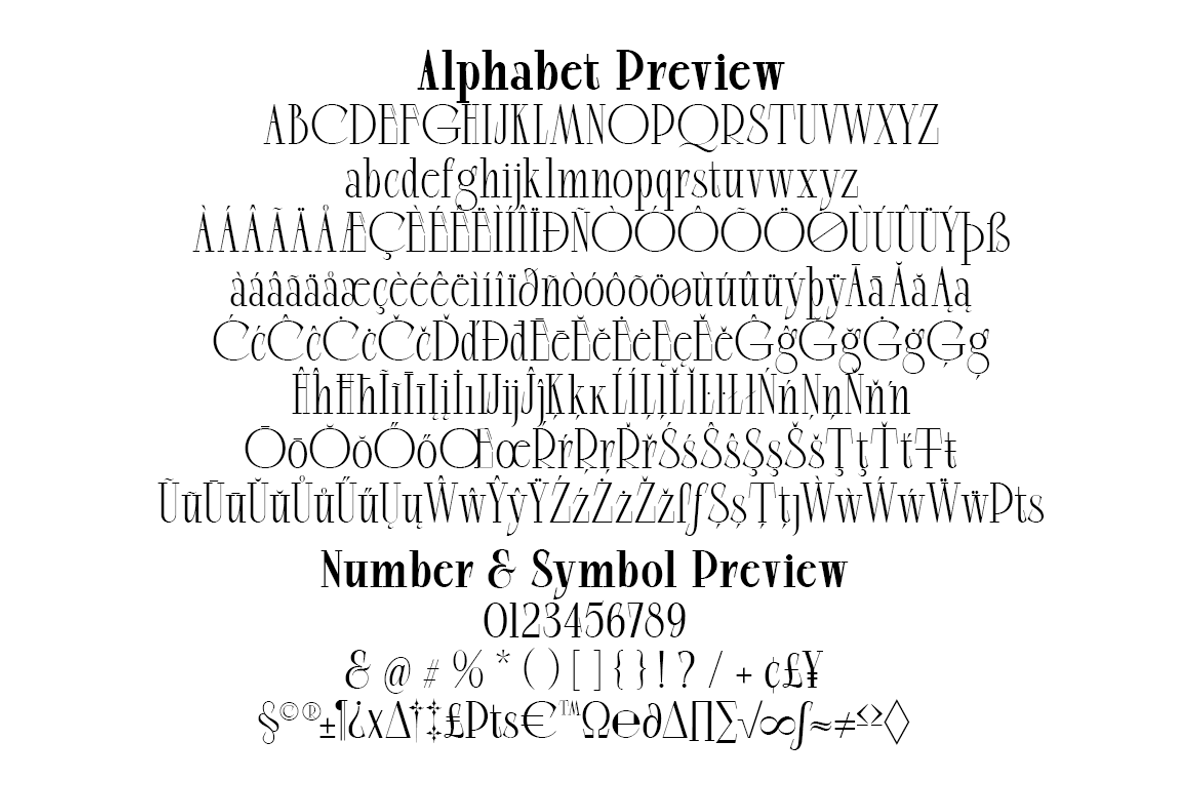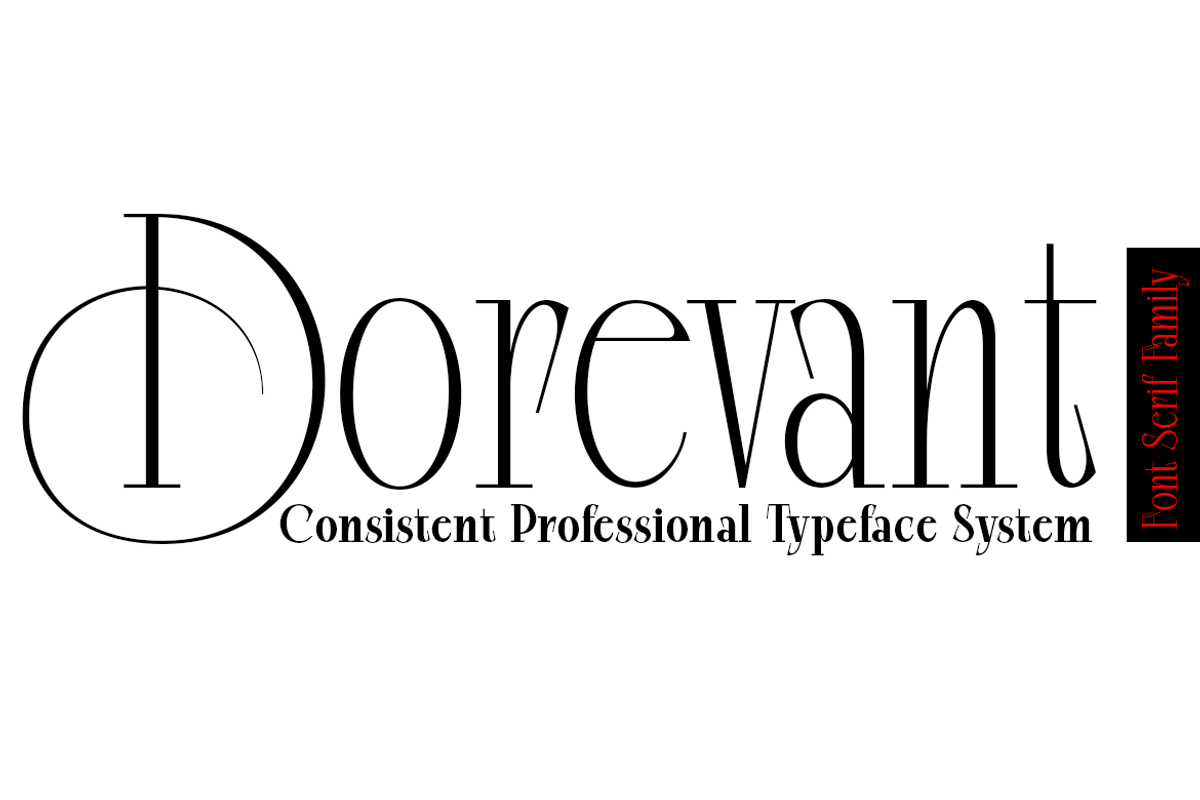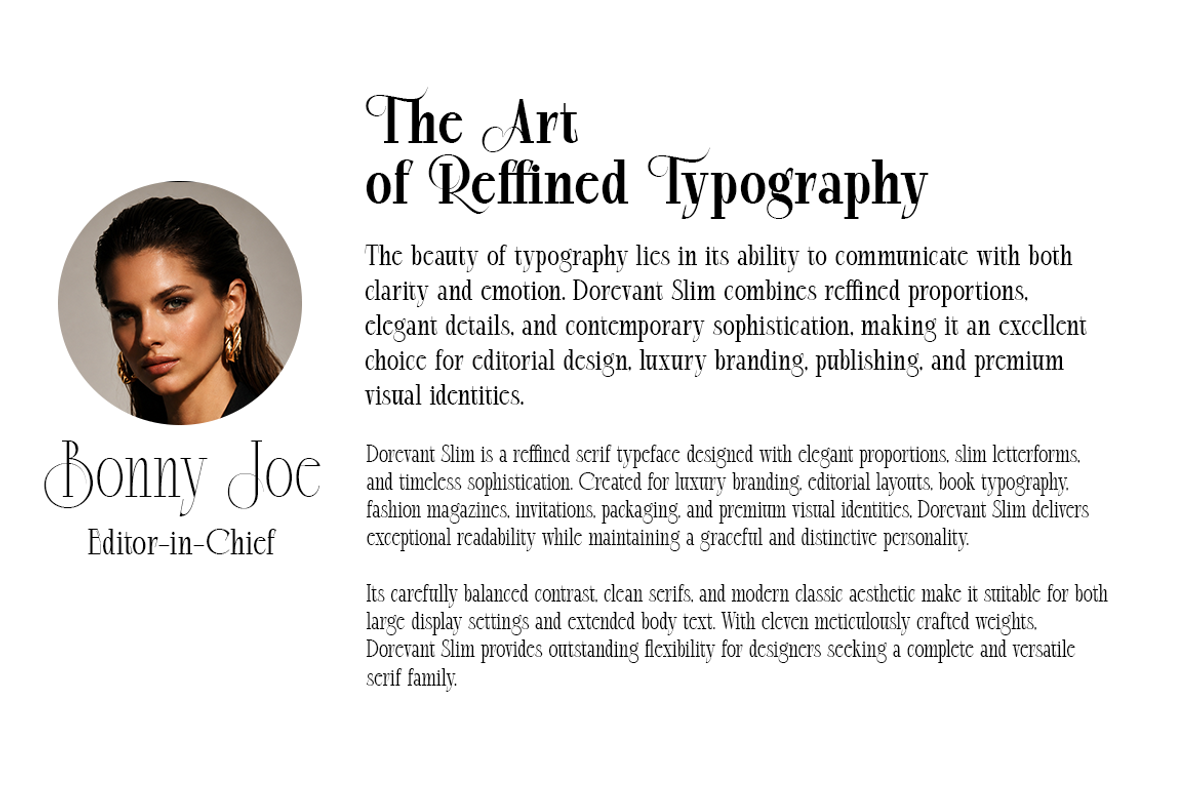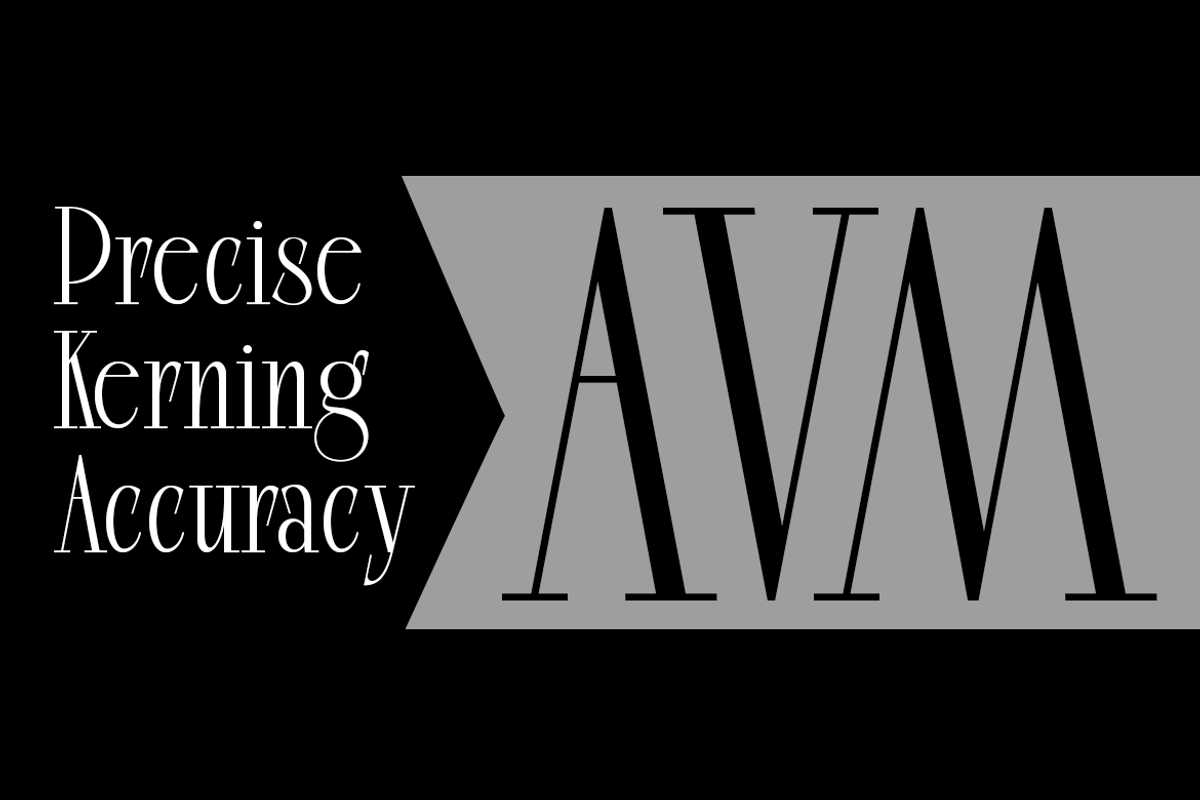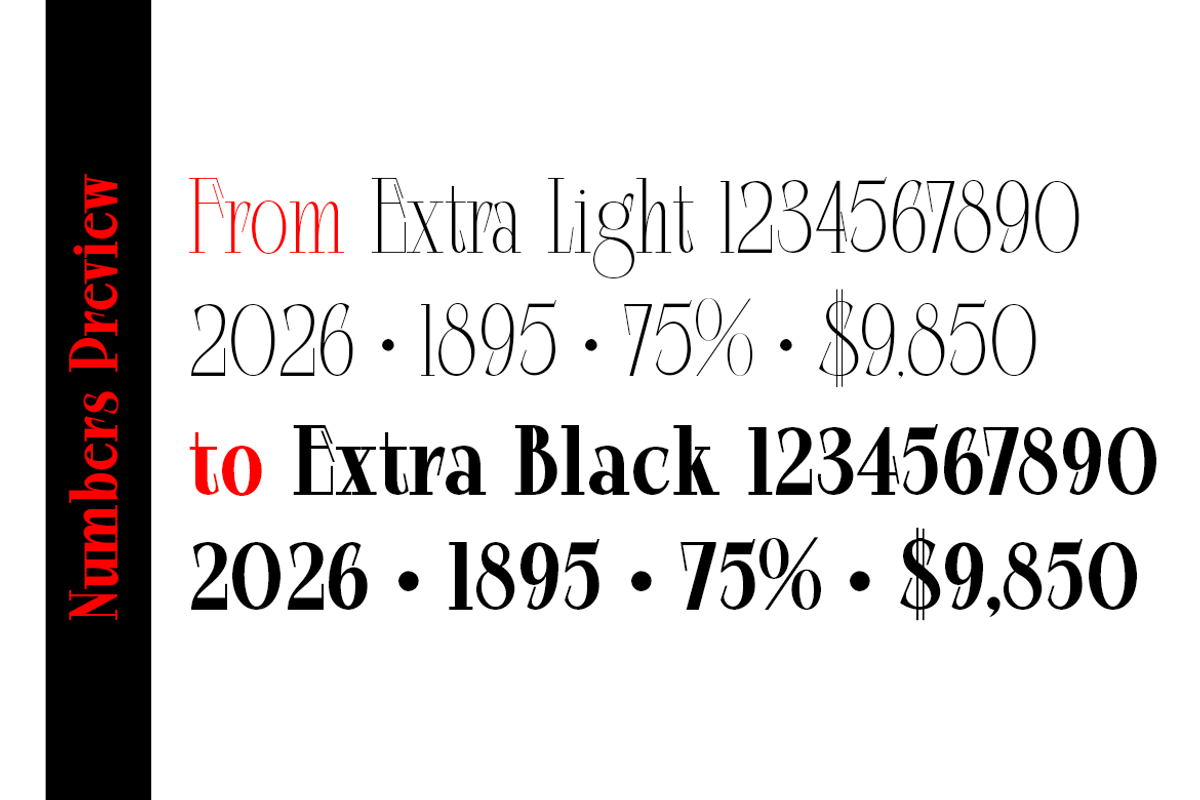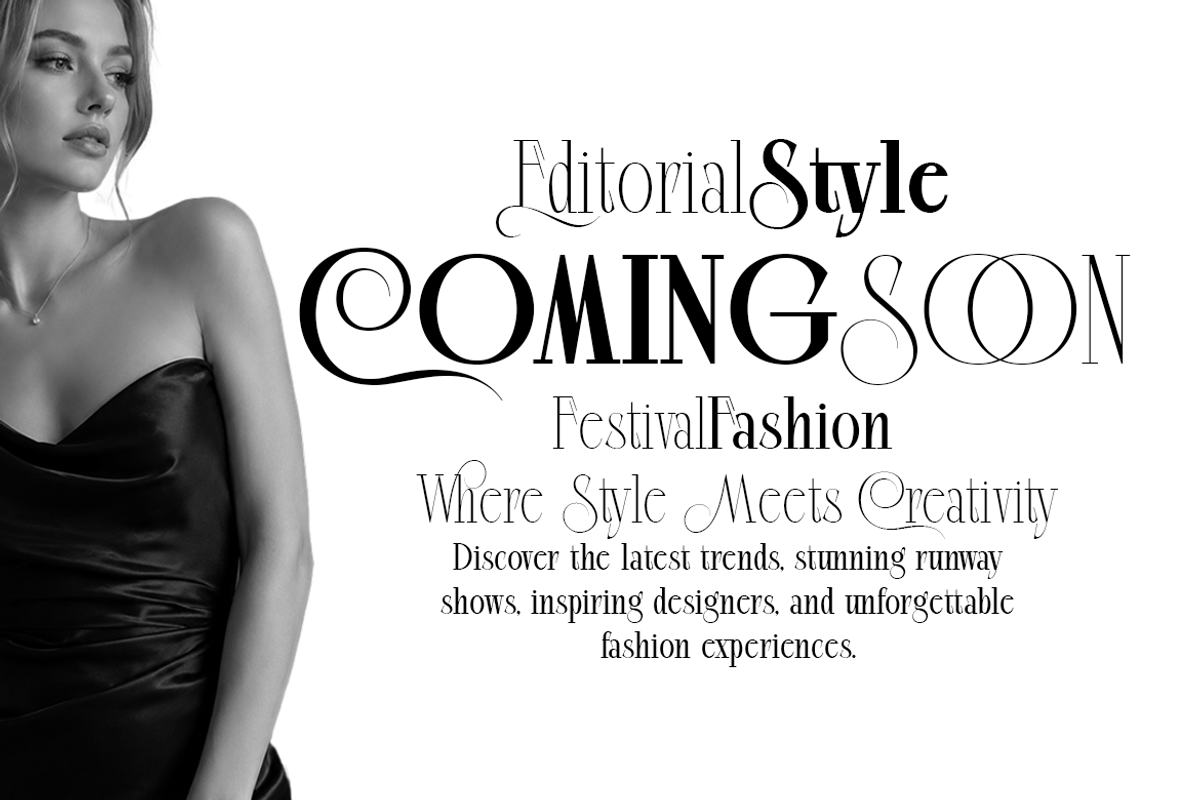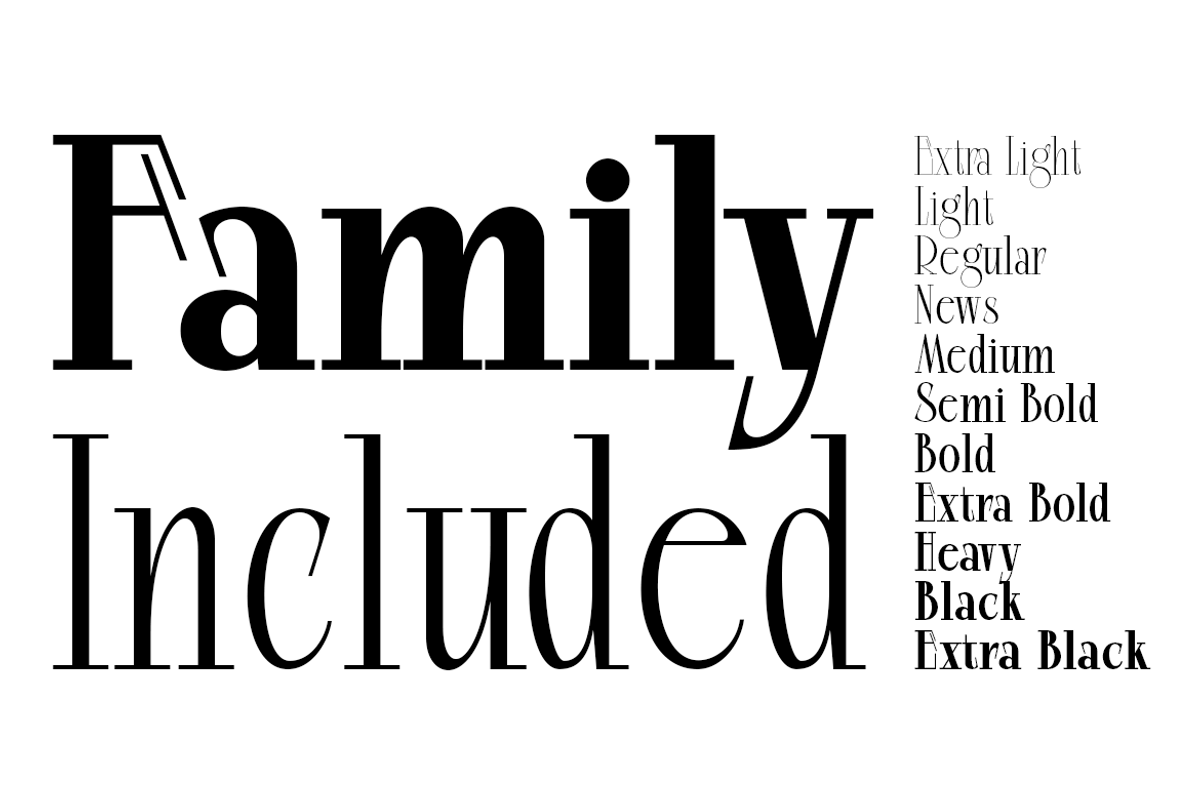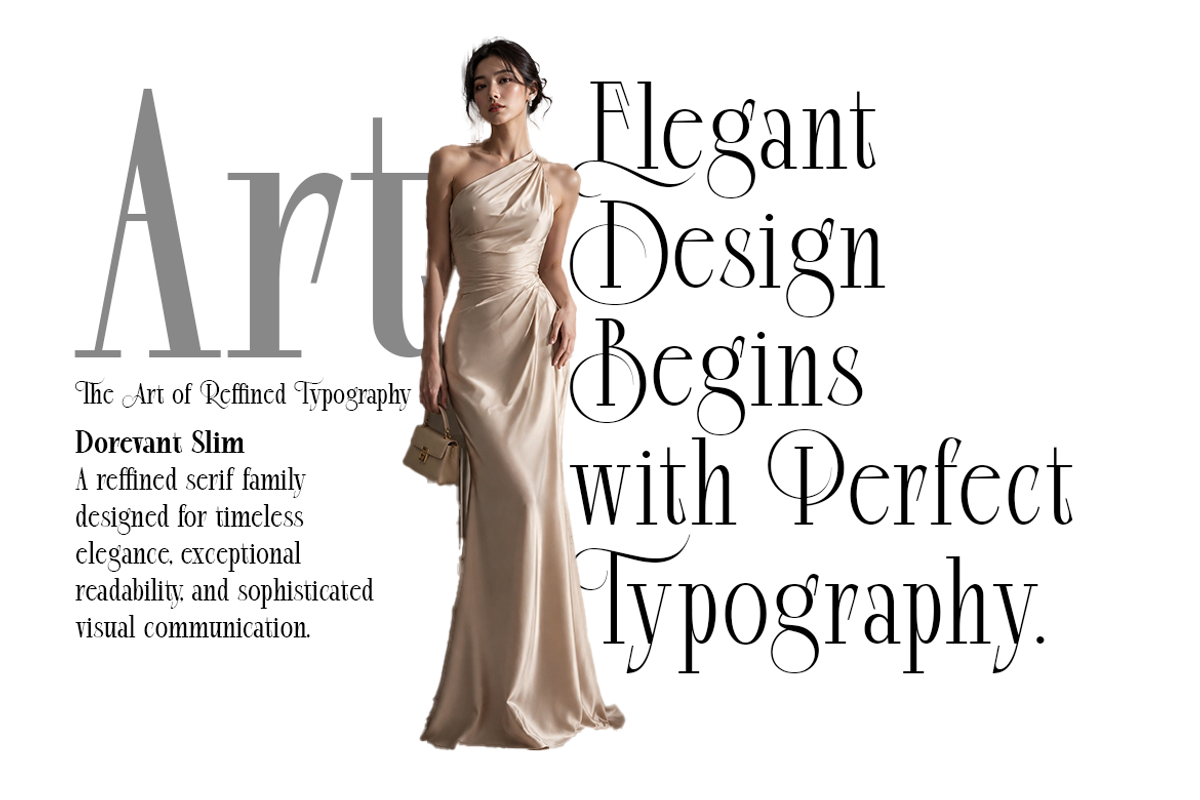
Dorevant
Dorevant Slim
Dorevant Slim is a refined serif typeface designed with elegant proportions, slim letterforms, and timeless sophistication. Created for luxury branding, editorial layouts, book typography, fashion magazines, invitations, packaging, and premium visual identities, Dorevant Slim delivers exceptional readability while maintaining a graceful and distinctive personality.
Its carefully balanced contrast, clean serifs, and modern classic aesthetic make it suitable for both large display settings and extended body text. With eleven meticulously crafted weights, Dorevant Slim provides outstanding flexibility for designers seeking a complete and versatile serif family.
Font Family
Extra Light The lightest expression of Dorevant Slim, perfect for elegant headlines, minimalist branding, luxury packaging, and sophisticated editorial compositions.
Light A graceful weight with a soft appearance, ideal for fashion magazines, invitations, lifestyle branding, and refined typography.
Regular The balanced core style of the family, offering excellent readability for books, articles, websites, and professional editorial work.
News Optimized for continuous reading and editorial publishing. This weight provides outstanding clarity and comfortable readability for newspapers, magazines, and long-form content.
Medium A slightly stronger presence while preserving elegance, making it perfect for subheadings, corporate identities, and premium publications.
Semi Bold Designed to create emphasis without overwhelming the layout. Excellent for titles, highlights, navigation, and branding applications.
Bold A confident and expressive weight suitable for impactful headlines, logos, advertising, and editorial titles.
Extra Bold Delivers strong visual authority while maintaining the refined character of the Dorevant Slim family. Ideal for posters, packaging, and bold branding.
Heavy A dramatic and powerful style that commands attention in large typography, luxury campaigns, and premium promotional materials.
Black Built for maximum visual impact with rich strokes and exceptional presence, perfect for statement headlines and high-end display typography.
Extra Black The boldest member of the family, offering unmatched strength and elegance for iconic logos, oversized headlines, premium branding, and striking visual identities.